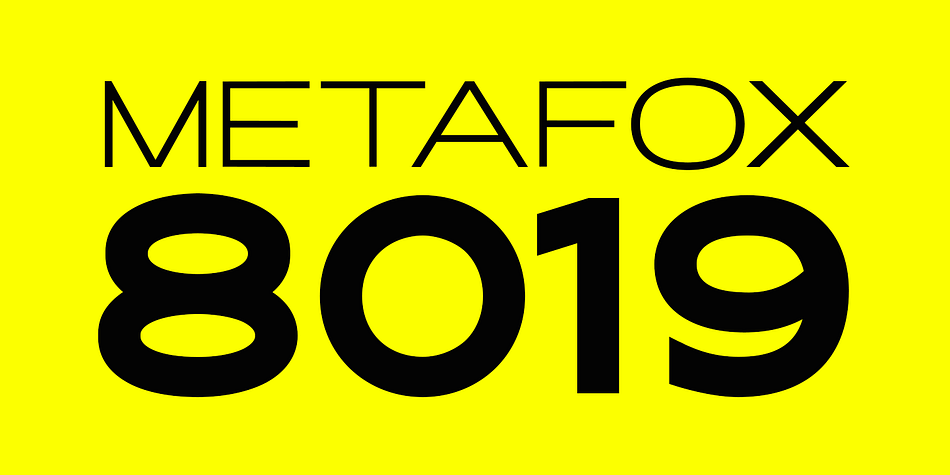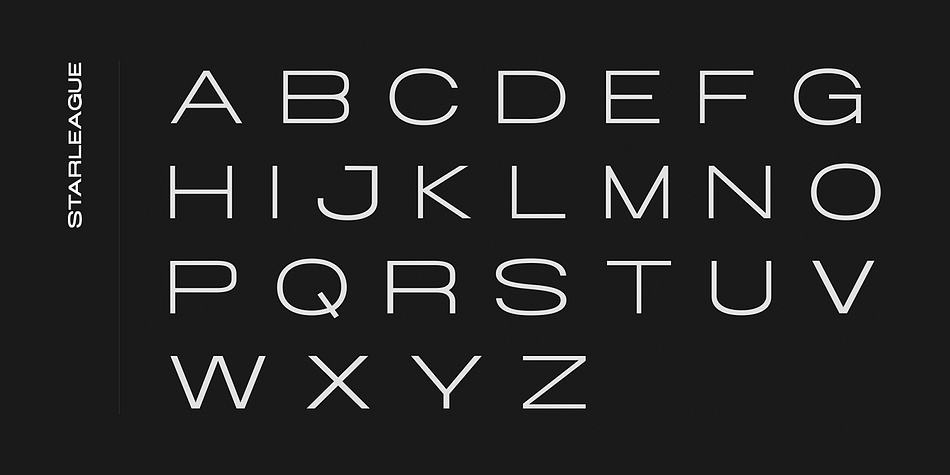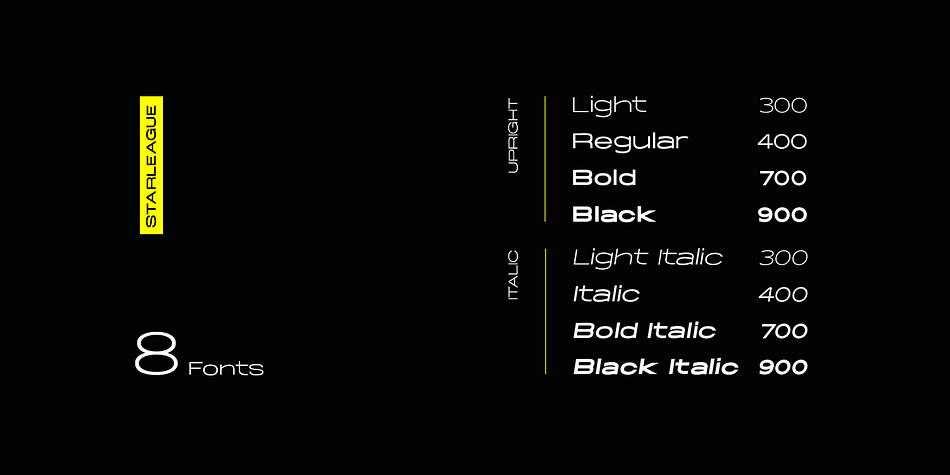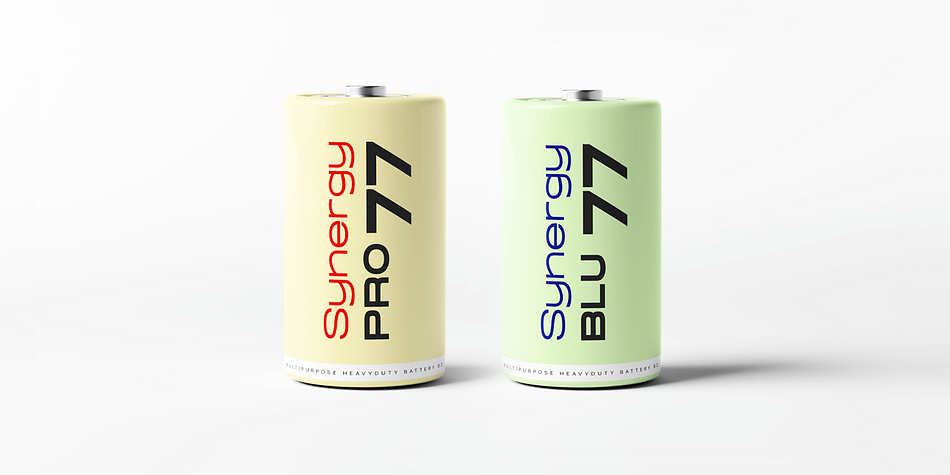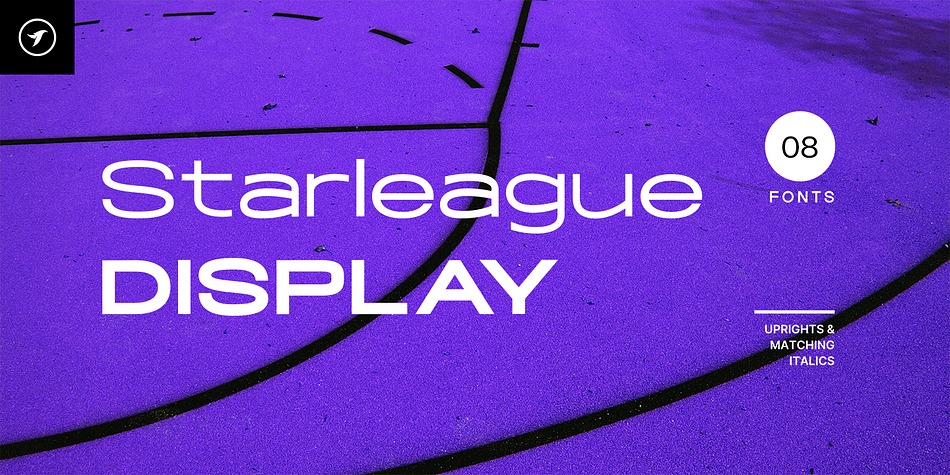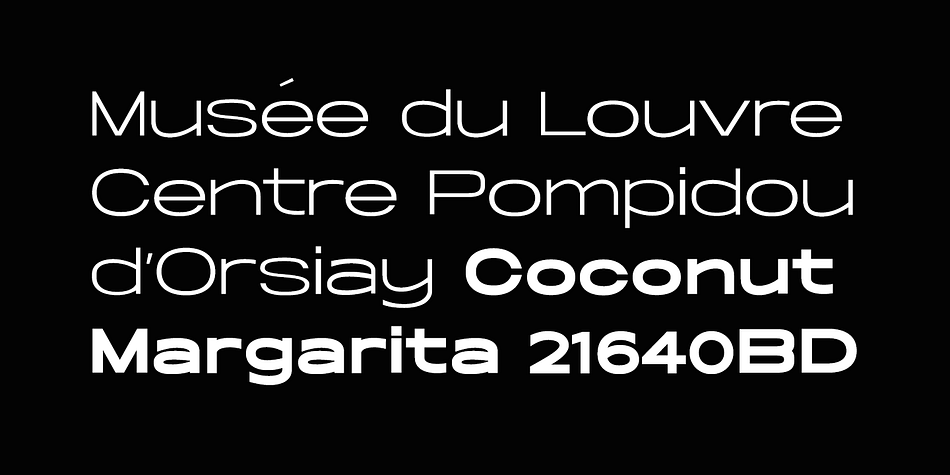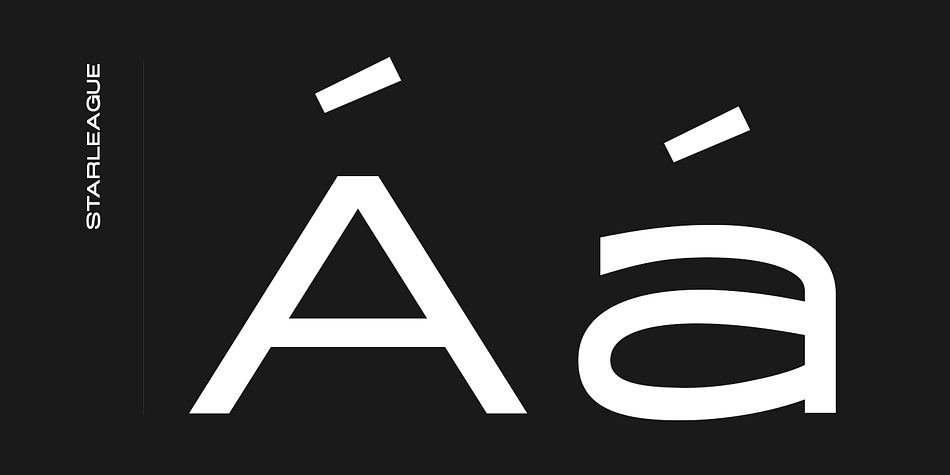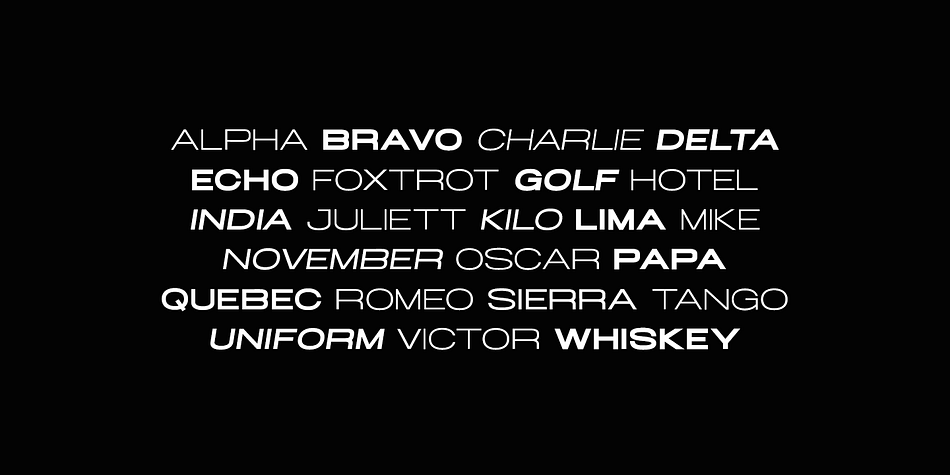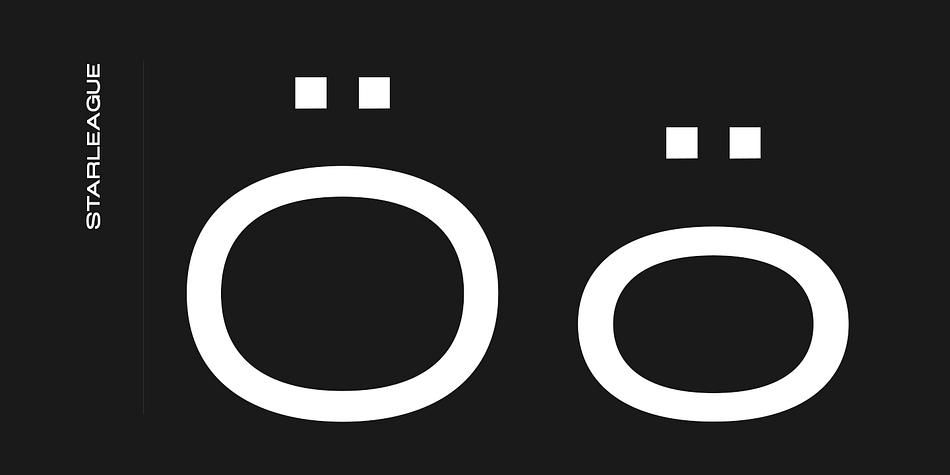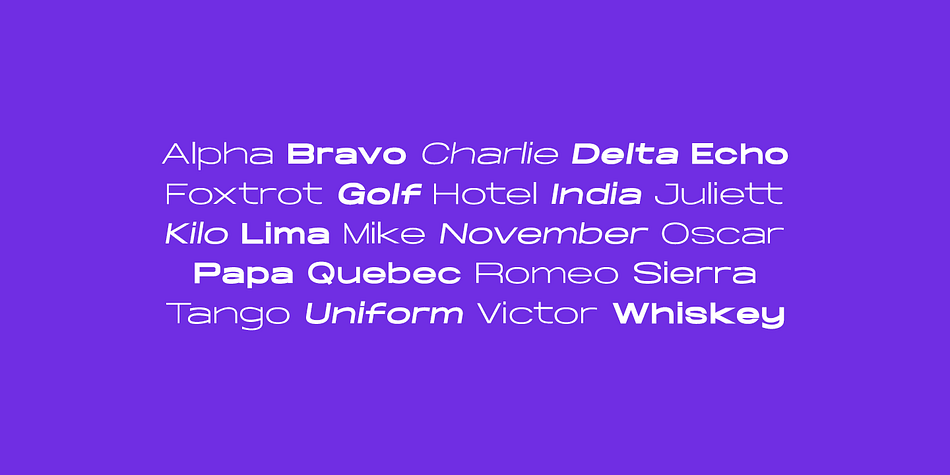
STARLEAGUE
Designed by Jean P. Johnson, STARLEAGUE is a sans serif font family. This typeface has eight styles and was published by Fontastica.
STARLEAGUE is a unique sans-serif font family that can be the perfect choice for branding, logotypes, and display purposes. It is especially suitable for creating bold and headline typography, exceptional logos, promotional content, and marketing graphics that can capture your visitors’ attention. By adjusting the letterspacing of the font, you can have more design options for your creative projects. Take a look at the examples above to get a better idea of the potential of this typeface.
The STARLEAGUE family contains a total of 8 fonts featuring five weights with uprights and italics. Each weight includes extended language support including Western European & Central European sets. A total of 350 glyphs are included.